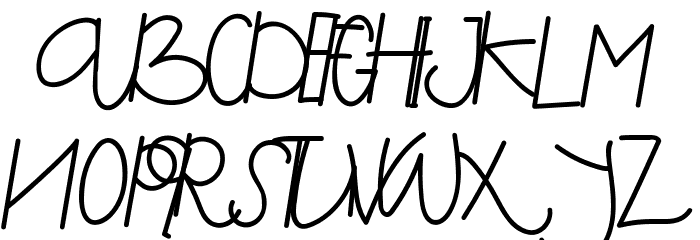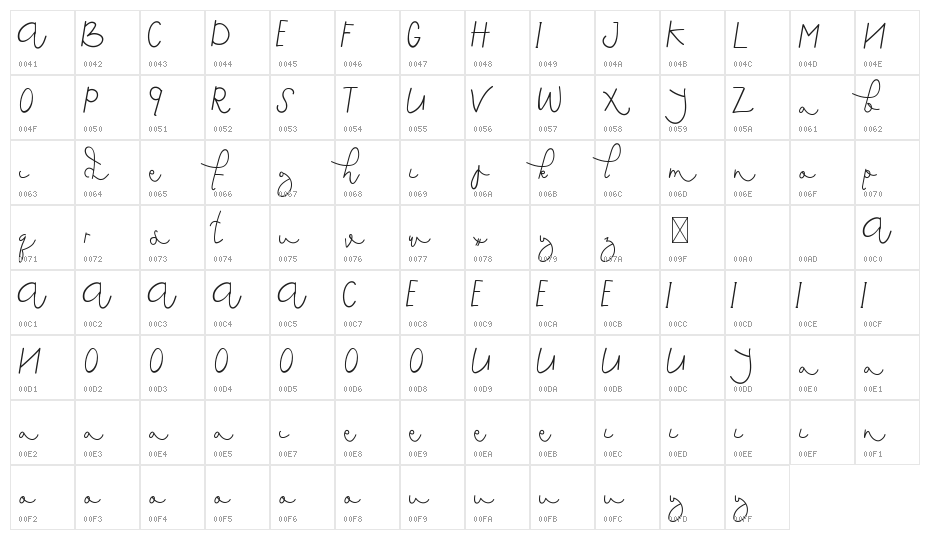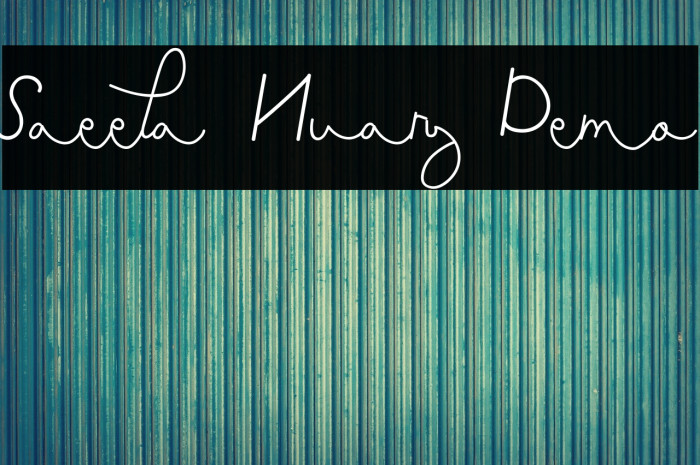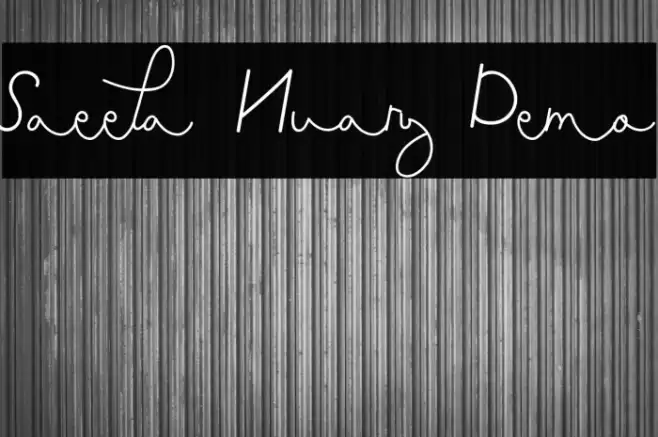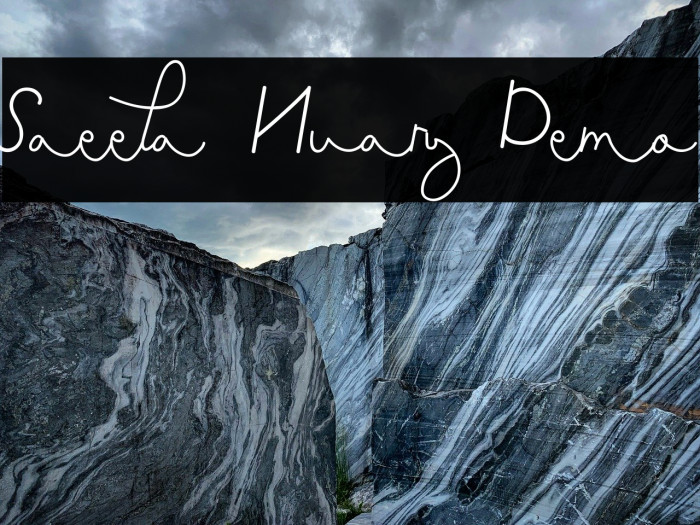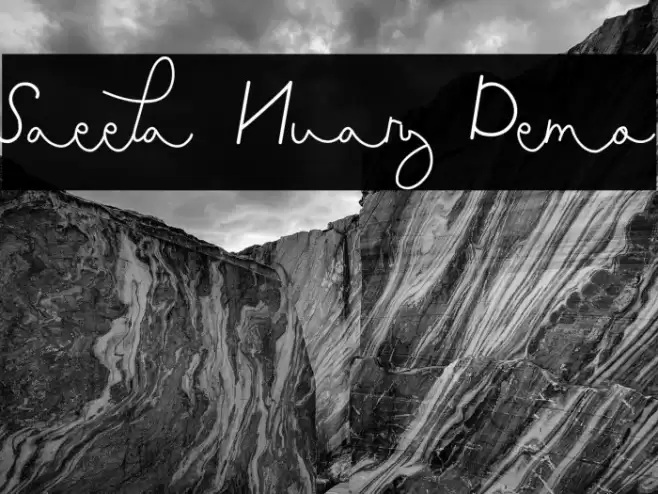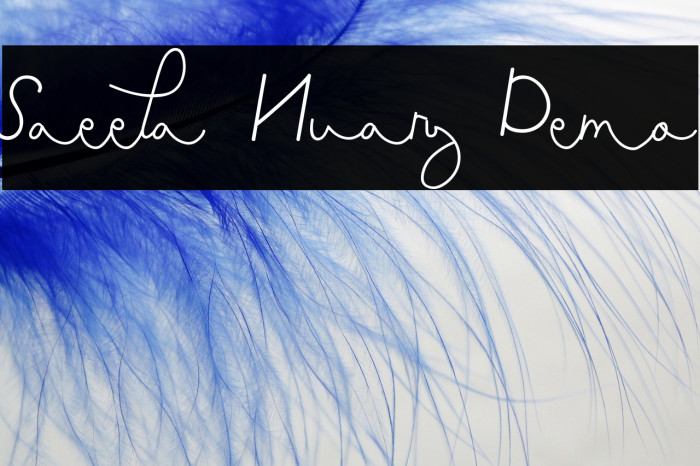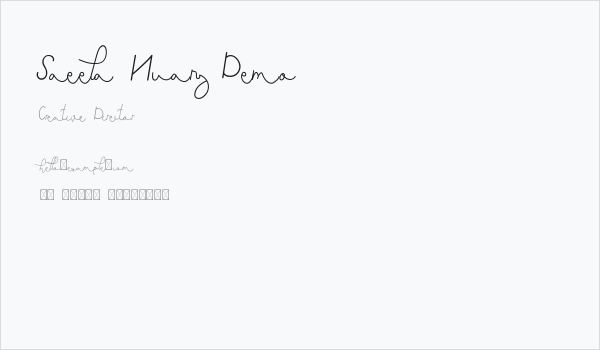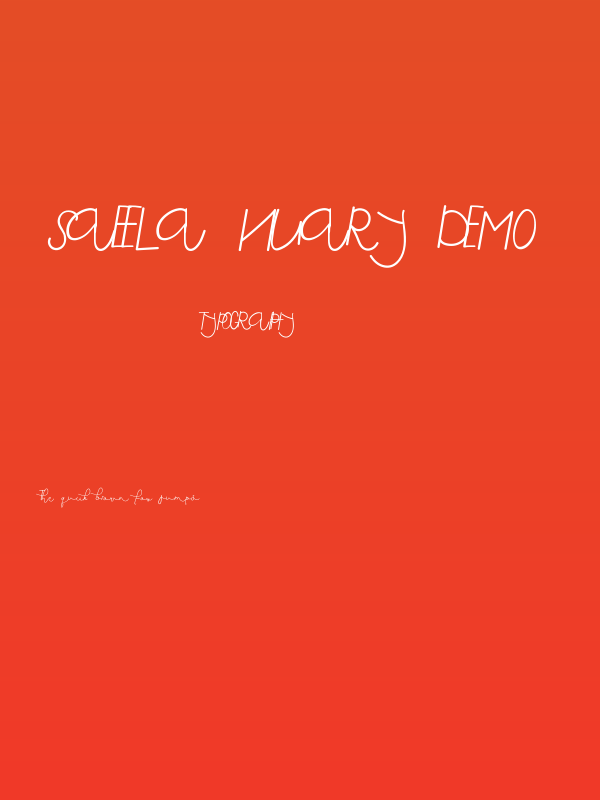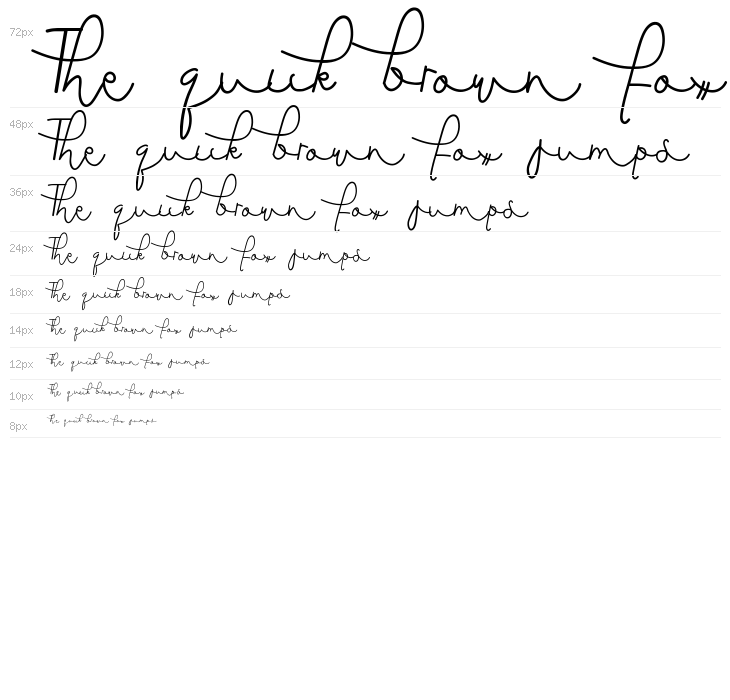
Saeela Nuary Demo Font
Saeela Nuary Demo Description
This font features a whimsical and flowing script style, characterized by its elegant and interconnected letterforms. The uppercase letters are bold and expressive, with a playful yet sophisticated flair. The lowercase letters maintain a consistent flow, with loops and curves that add a sense of movement and grace. The font's overall appearance is both artistic and modern, making it suitable for creative and decorative applications. The strokes are consistent in thickness, providing a balanced and harmonious look. This font is ideal for projects that require a touch of elegance and creativity.
| Use Case | Logos, Decorative text, Invitations |
| Proposed Projects | Ideal for wedding invitations, greeting cards, branding, and artistic projects. |